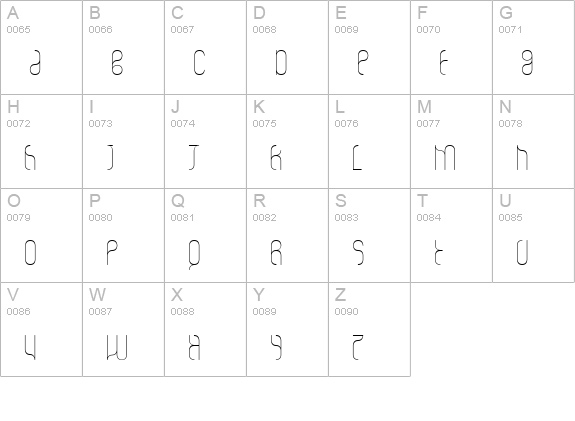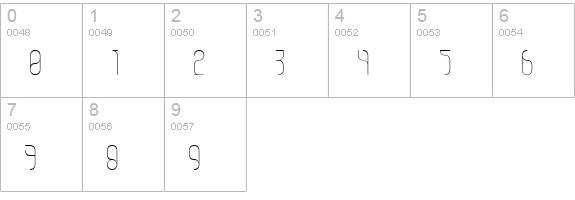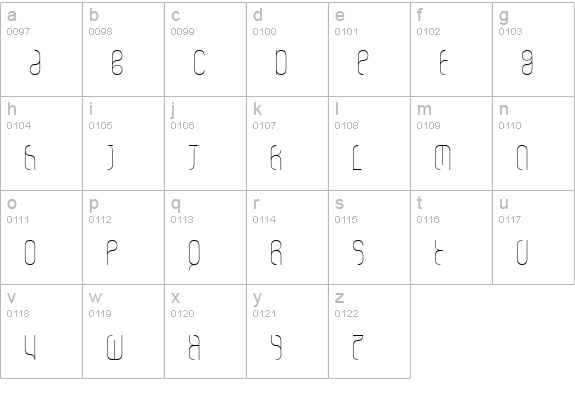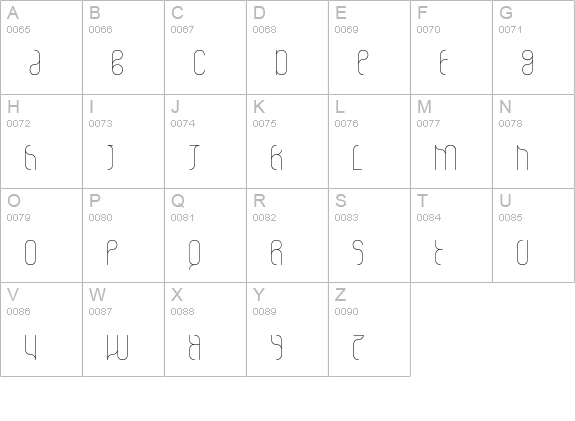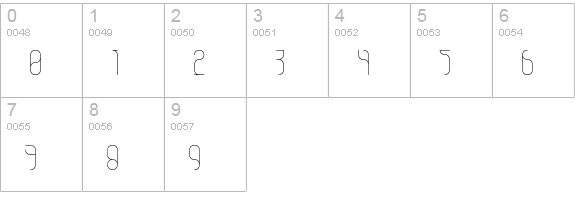
ovethin Font Details
Introducing Ovethin font, a sleek and modern typeface perfect for adding a touch of elegance to your designs. With its thin, delicate lines and stylish curves, Ovethin exudes sophistication and charm. This versatile font is ideal for a wide range of projects, from branding and logos to invitations and social media graphics. The best part? Ovethin is completely free to download at FontsMarket.com. That's right, you can easily access this stunning font without any cost, making it a fantastic choice for designers on a budget. Don't miss out on the opportunity to enhance your creations with the beauty of Ovethin font. Download it today and elevate your design projects to new heights!